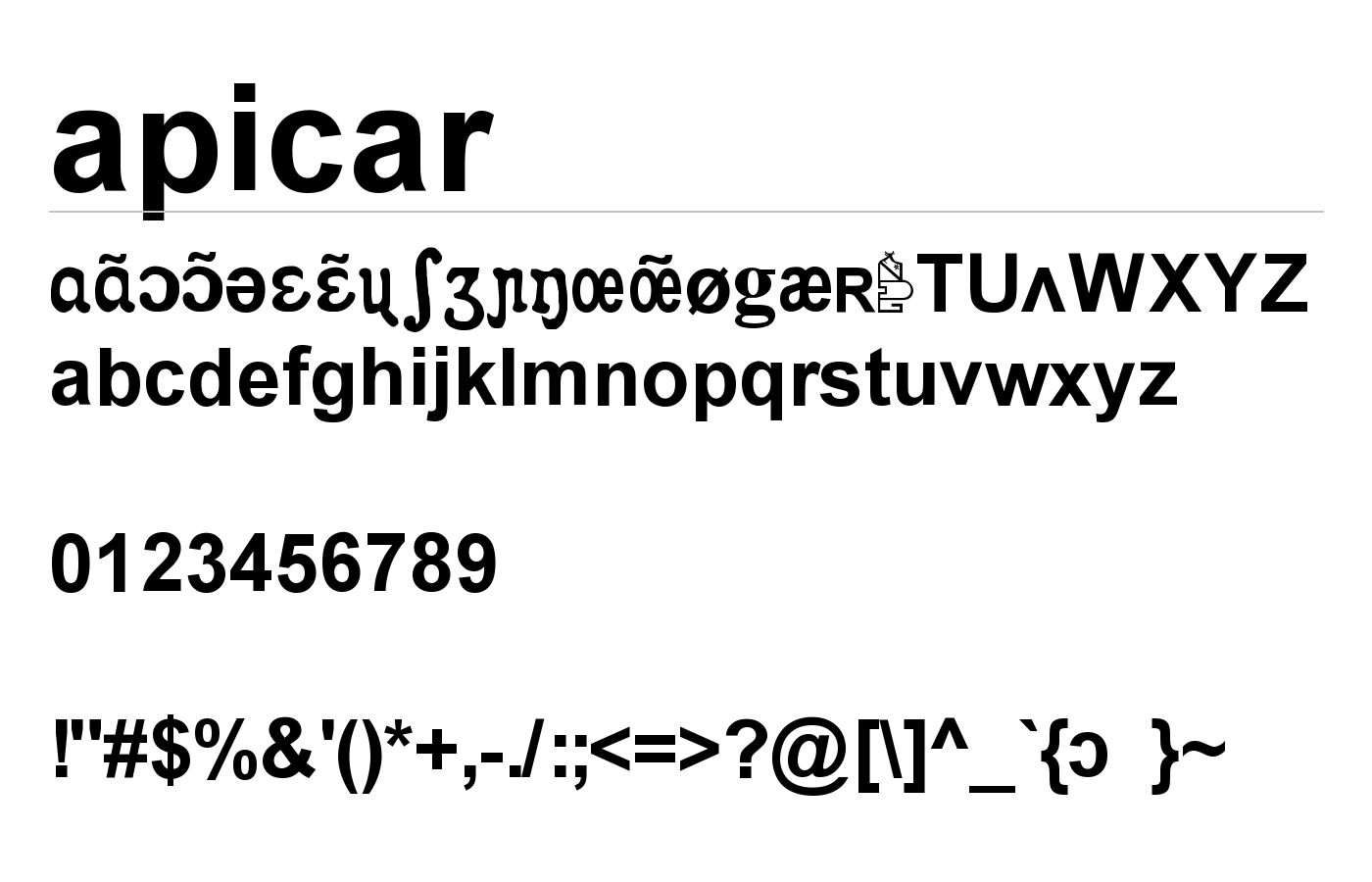
Apicar (Arial gras) is a bold, sans-serif font with a clean, sturdy appearance and moderate contrast between strokes. Its wide, geometric letterforms and double-story characters offer excellent readability, making it a versatile choice for headlines, branding, and digital content. This font conveys a modern, straightforward, and confident personality, suitable for professional and contemporary designs that require clarity and impact.
Apicar (style Arial gras) Font
About Apicar (style Arial gras) Font